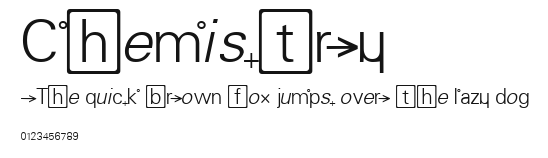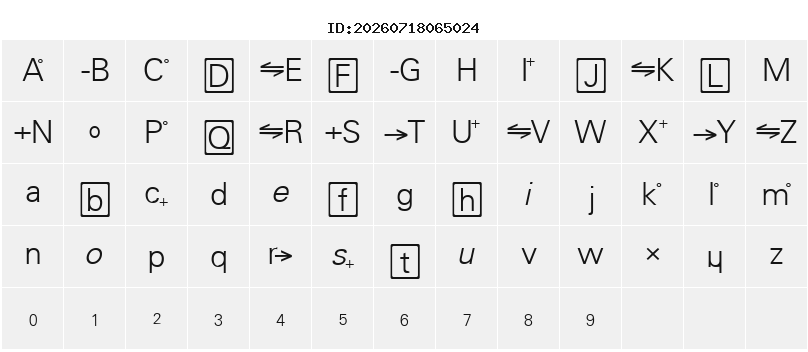
• Font Name: Chemistry
• Full Font Name: Chemistry
About Chemistry.ttf
Chemistry.ttf is a modern, elegant sans-serif font designed for ultimate readability and visual harmony. Perfect for branding, headlines, web design, and print materials.